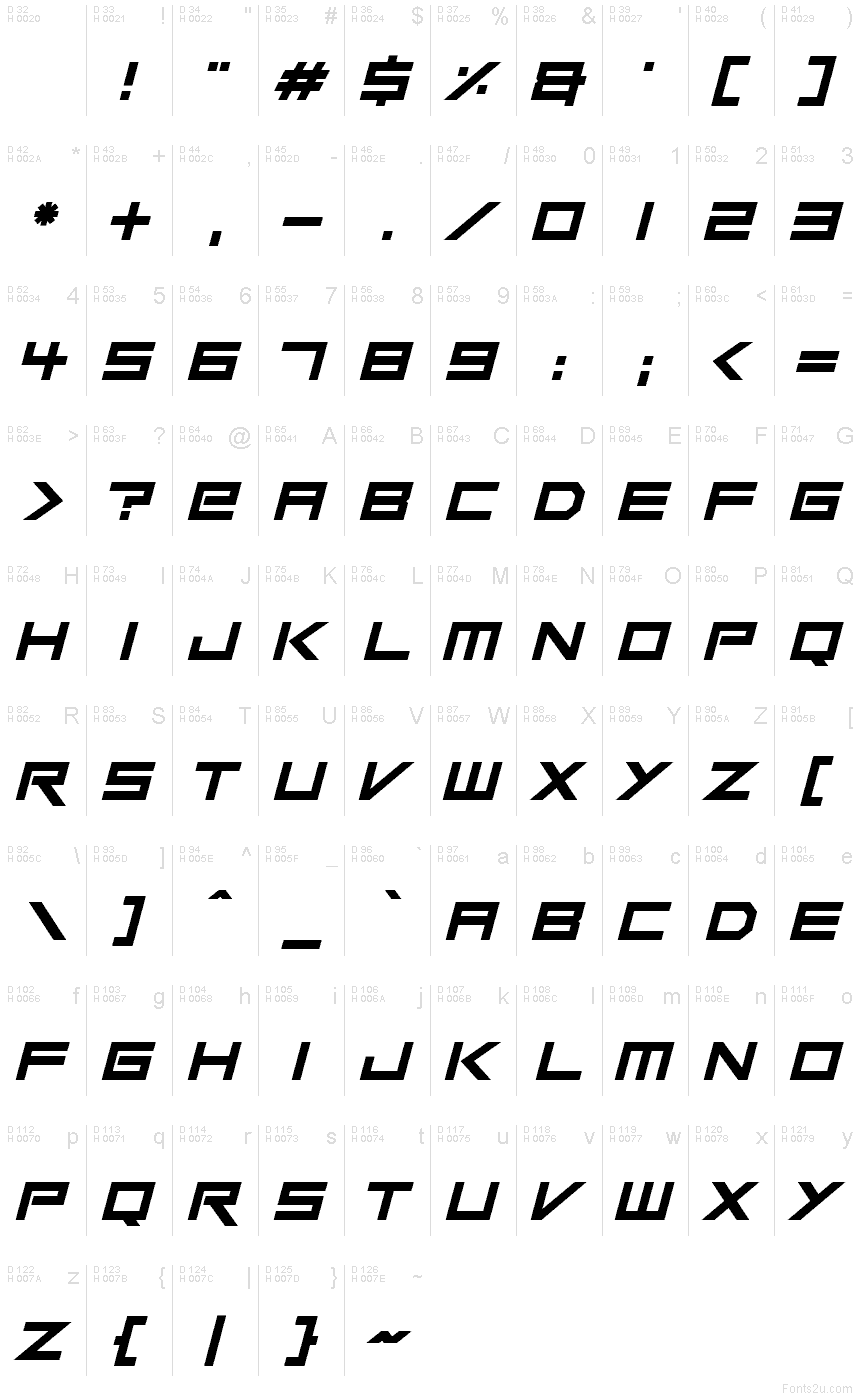
Robot Heroes Italic font by Hawtpixel is a free techno display font. Built in the Robot Heroes family’s sharp, forward-leaning DNA, it slices across the page with chiseled angles, tight joins, and a turbocharged slant that reads as motion even when static. The strokes feel metallic and aerodynamic, like panel lines on a sci‑fi hull-crisp, fast, and unmistakably modern.
Using Robot Heroes Italic, headlines snap to attention and carry momentum across banners and screens. This free font shines on esports branding, game covers, tech event posters, racing graphics, streaming overlays, and futuristic product packaging. Keep it big and bold; add a hair of tracking for glow effects. For body copy, pair with a clean grotesk sans to let the speed lines do the talking.